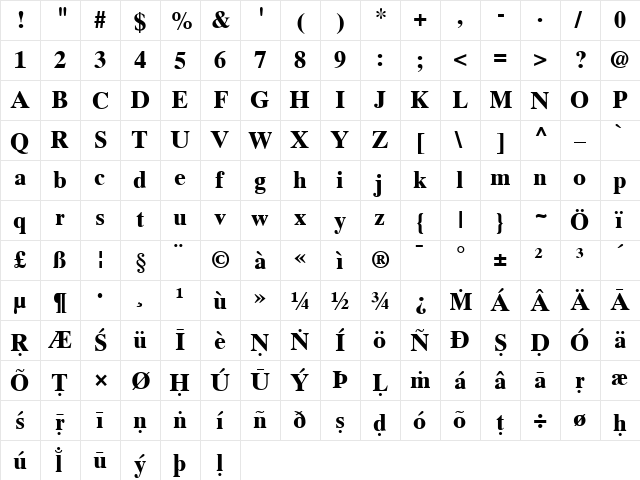
ScaTimes Bold Font Preview
ScaTimes Bold
ScaTimes Bold Font Details
Design Context for ScaTimes Typeface
ScaTimes takes a measured approach to typography — its balanced proportions and neutral character make it a reliable workhorse for both digital and print work. The heavy weight commands attention and anchors typographic hierarchies.